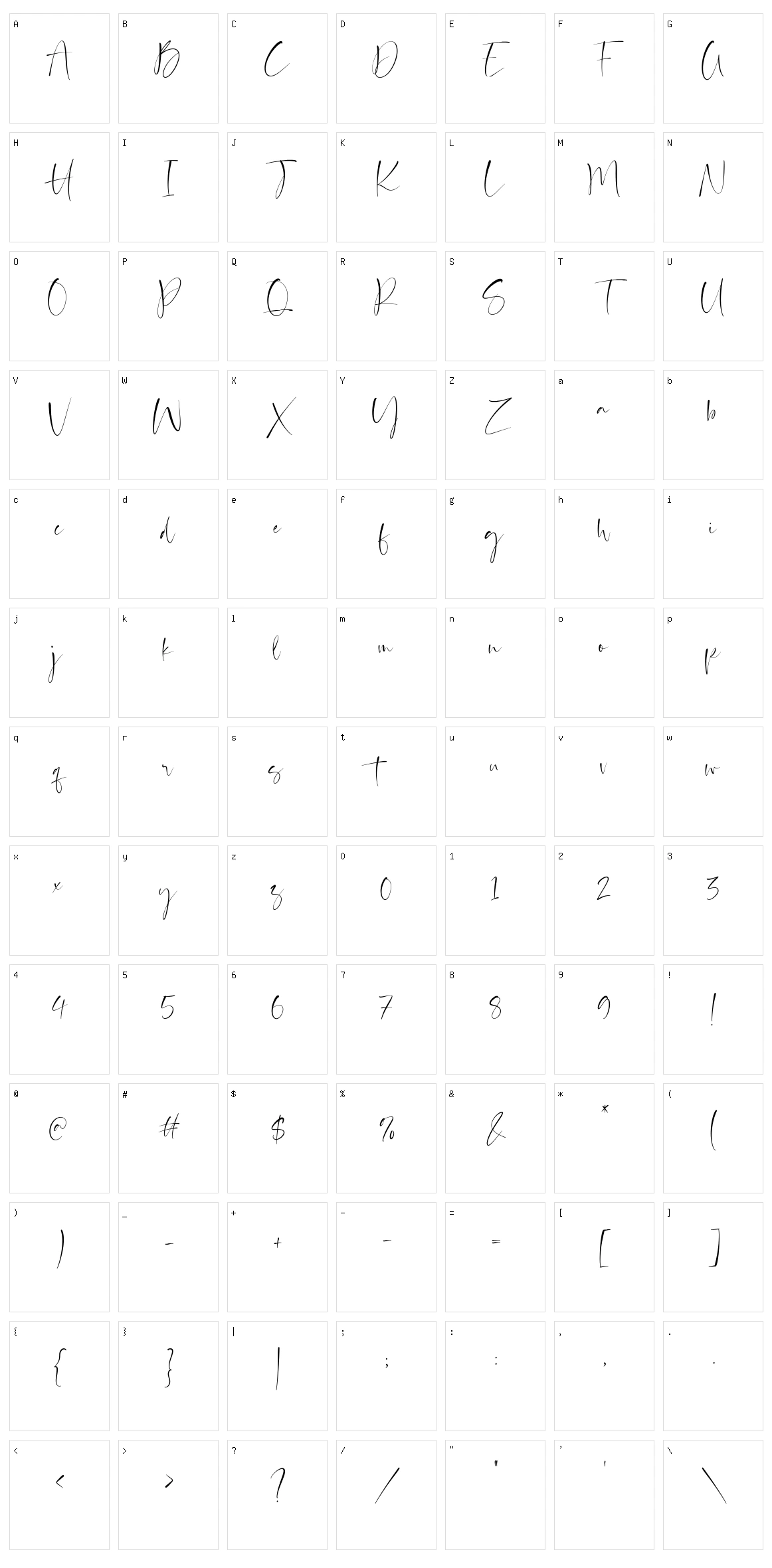
The free font Barriton Paradise is carefully designed by Timur Type, showcasing a thoughtful balance of creativity and usability and falls under the Script font style. When you download the ZIP file, it contains only 127.42 KB of font files, making it lightweight and quick to download. Please review the license details below to understand permitted usage and distribution rights. If license information is not available, we recommend using this font for personal projects only or contacting the author directly for commercial usage permissions.